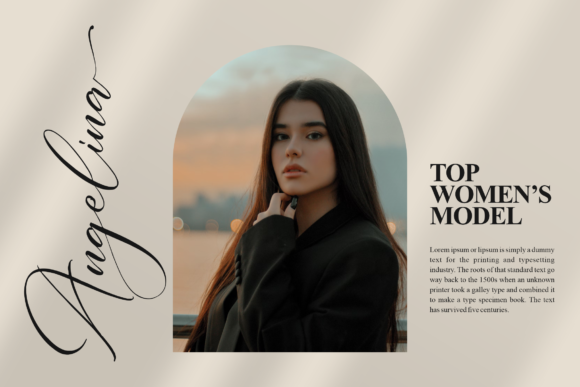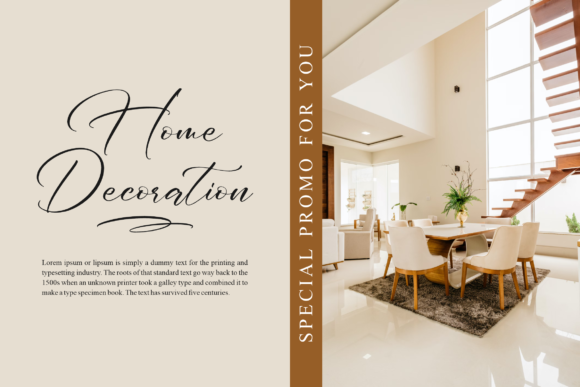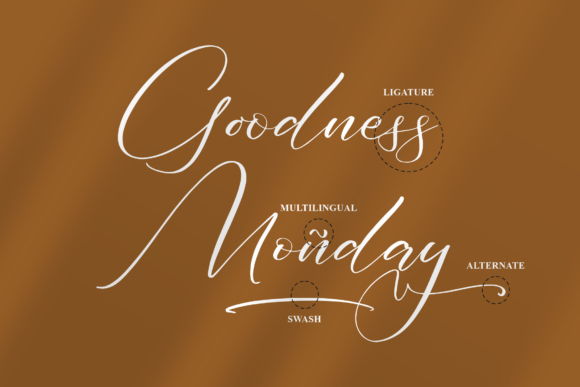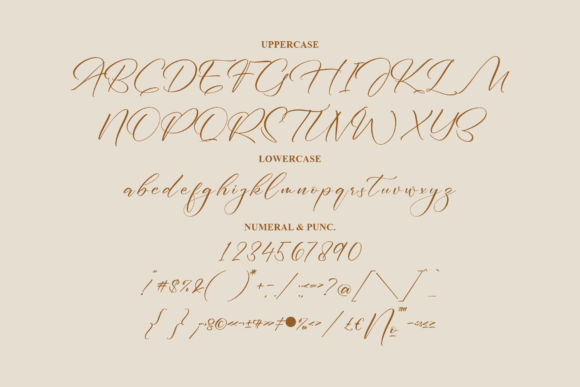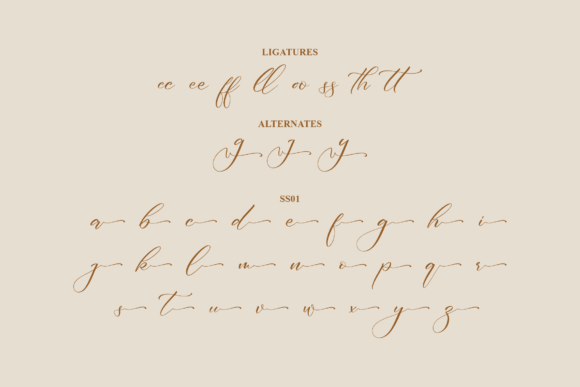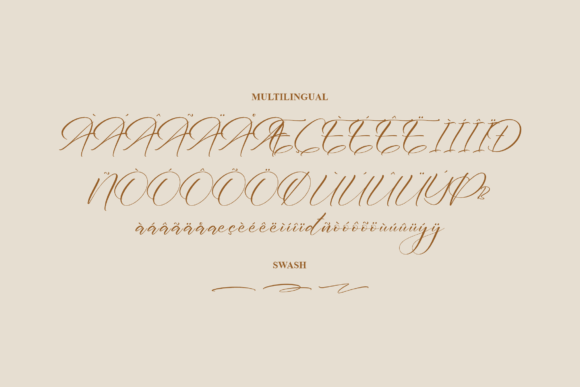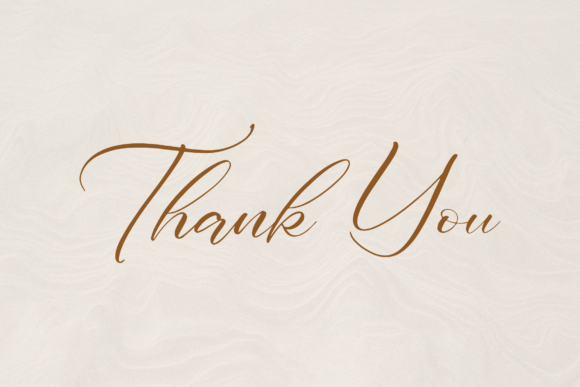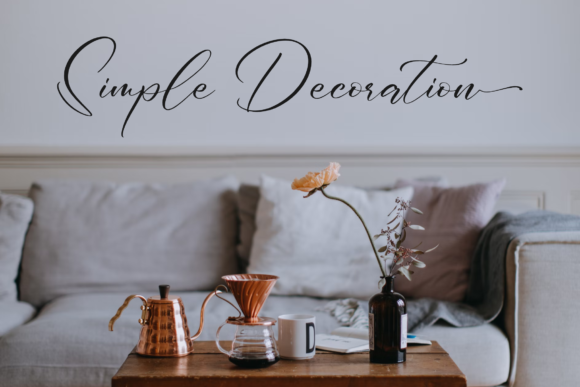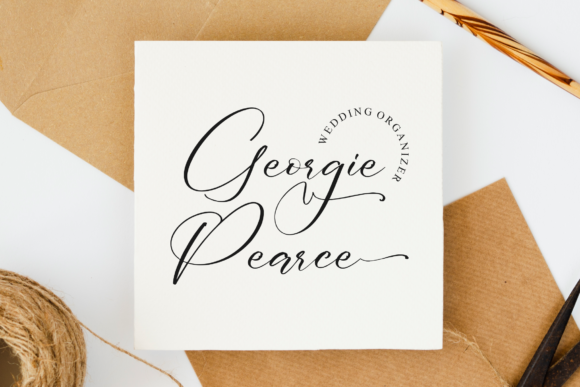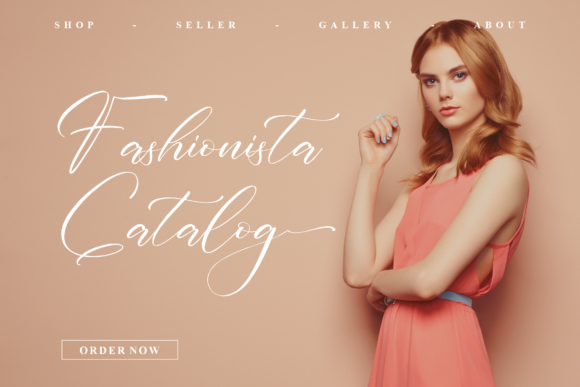
Ethalogia Font
“Ethalogia” is a beautiful and light handwritten font that carries a unique and impactful feel. This font’s distinctive character and stunning visual impact make it an ideal choice for adding a touch of luxury to any design project.
The font’s beautiful and light handwritten style exudes a sense of elegance and charm. Whether you’re working on projects that demand a luxurious touch, a unique vibe, or a captivating impact, “Ethalogia” can enhance your work with its artistically pleasing appearance.
The font’s ability to bring a luxury spark to your design projects makes it well-suited for a variety of creative applications. From creating captivating branding materials to crafting stunning visual elements, the font can elevate your designs with its distinct and captivating charm.
The PUA encoding feature allows you to easily access all of the amazing glyphs and ligatures, enabling you to experiment with different design variations and create compositions that truly stand out.
In essence, “Ethalogia” is more than just a font—it’s a creative resource designed to elevate your design projects. Its beautiful and light handwritten style, along with its luxury appeal and unique impact, make it a valuable tool for designers striving to create designs that are visually appealing, captivating, and effortlessly luxurious, leaving a lasting impression.